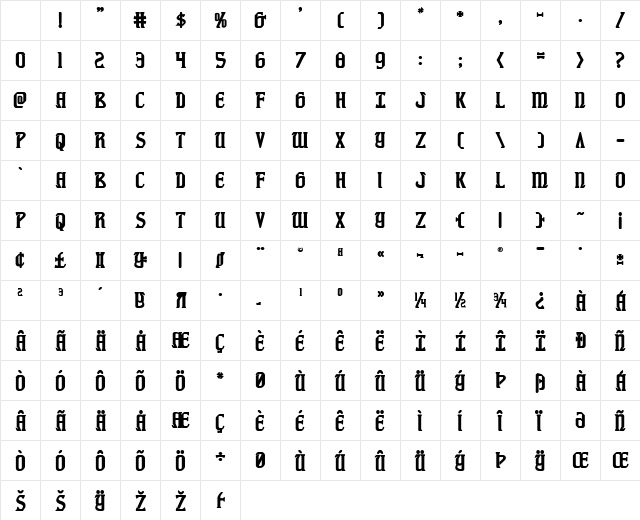
Complete Fiddler's Cove Bold glyph index. Displaying only characters natively supported by Fiddler's Cove Bold font.
Fiddler's Cove is a composed and adaptable typeface that performs quietly and consistently across a wide range of design contexts. Its bold stroke weight gives it real presence on the page.